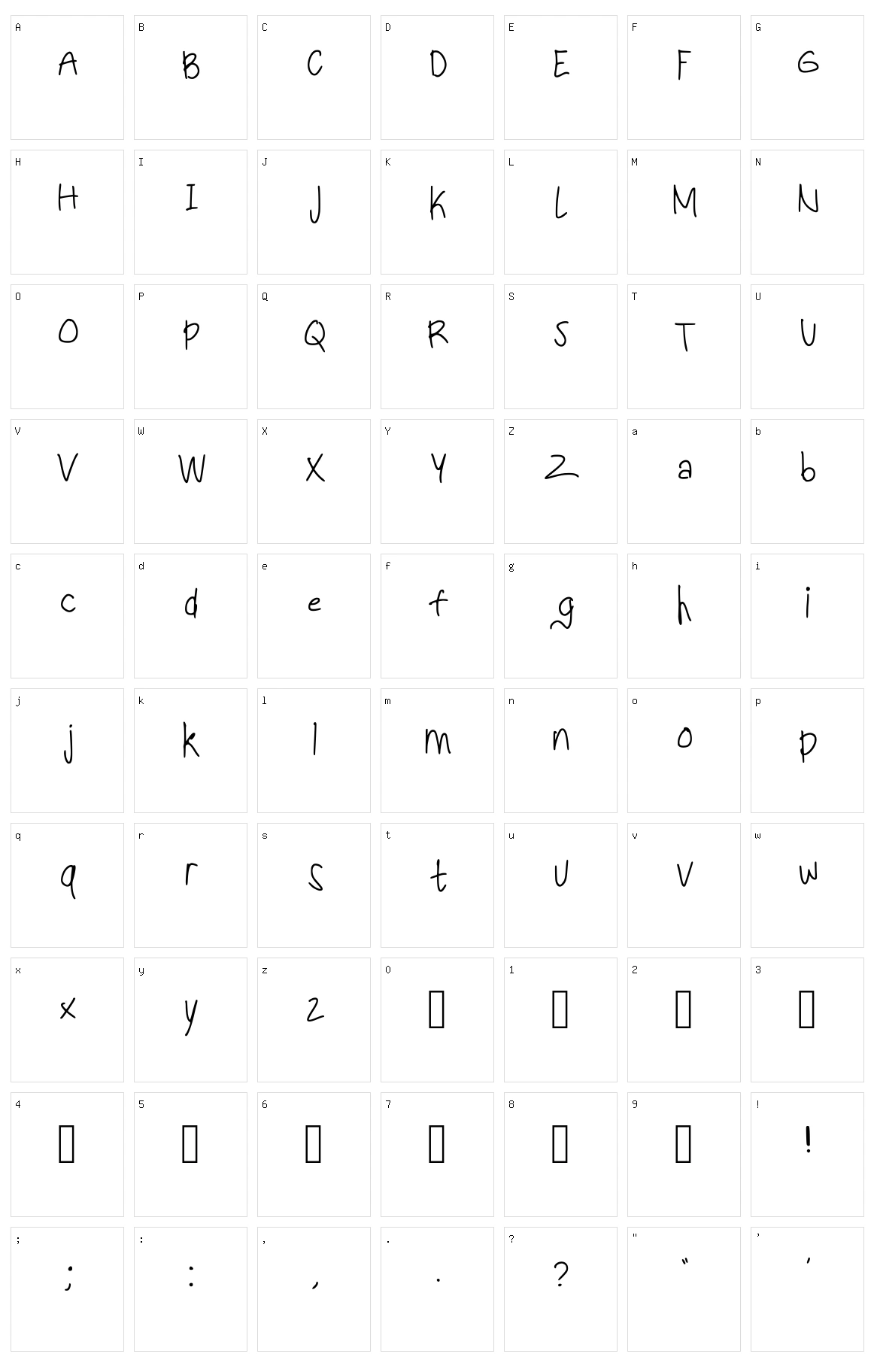
The free font Crisontf is carefully designed by Crisont F, showcasing a thoughtful balance of creativity and usability and falls under the Script font style. When you download the ZIP file, it contains only 7.83 KB of font files, making it lightweight and quick to download. Please review the license details below to understand permitted usage and distribution rights. If license information is not available, we recommend using this font for personal projects only or contacting the author directly for commercial usage permissions.